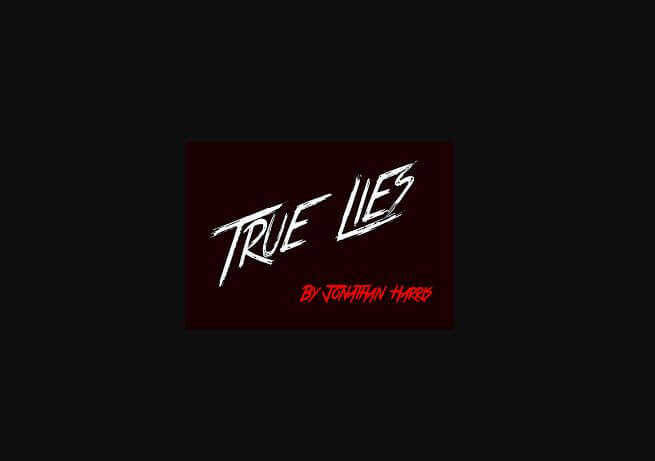
True Lies Font
True lies font is absolutely new and fresh. This font has many stylish and unique characters and alphabets. It is a free font. This font is free and used on iPhone and smartphone too.
It is another danger font that you can be used in all the types of surfing capital font styles and great artworks. This font is beautifully designed to make the designs and painting looks great.